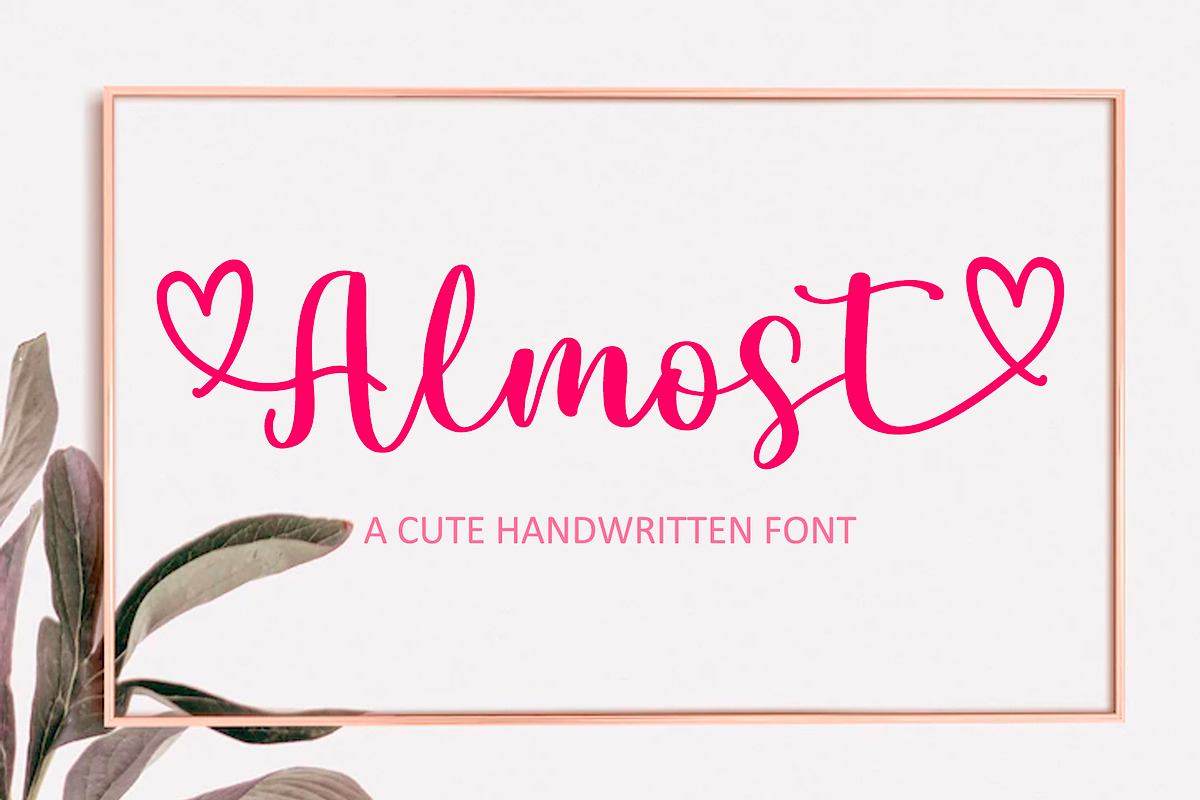
Almost | Handwritten Font Free Download
Almost Handwritten Font Free Download
Almost Handwritten Font Free Download is a casual and stylish script typeface that mimics the natural flow of real handwriting. With its relaxed letterforms and smooth, organic strokes, this font is ideal for personal branding, blog headers, social media posts, thank-you cards, and creative packaging that calls for a friendly, down-to-earth feel.
Effortlessly blending simplicity with charm, Almost Handwritten Font Free Download brings a personal touch to any design. It’s great for adding authenticity and warmth, especially in projects where you want your message to feel genuine and approachable.